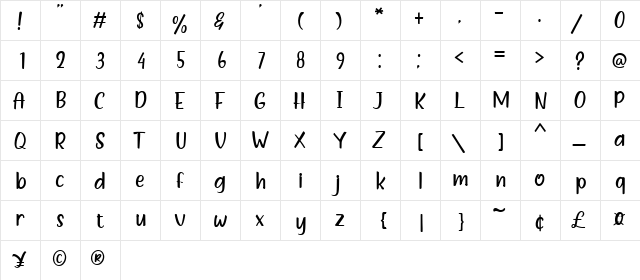
Freshty Milk Regular
| Foundry | Handstype Studio |
| Designer | Wahyudi Nur Prayitno |
Design Context for Freshty Milk Typeface
Freshty Milk is a composed and adaptable typeface that performs quietly and consistently across a wide range of design contexts.